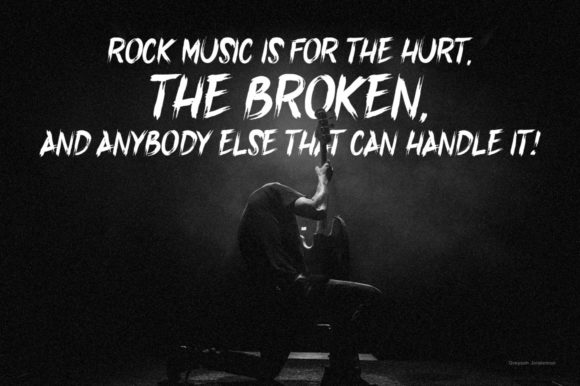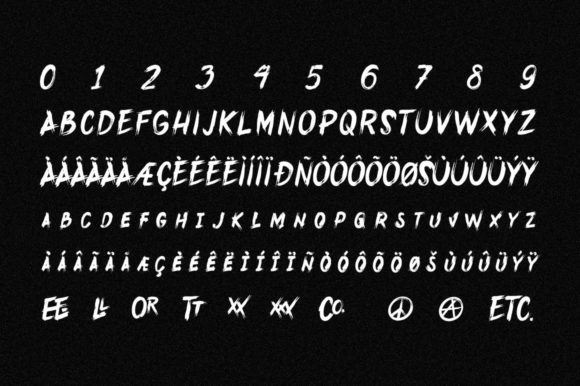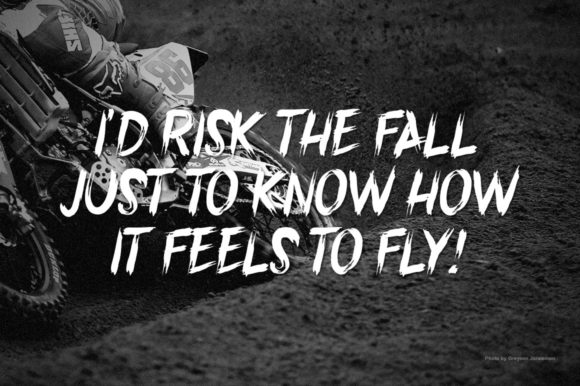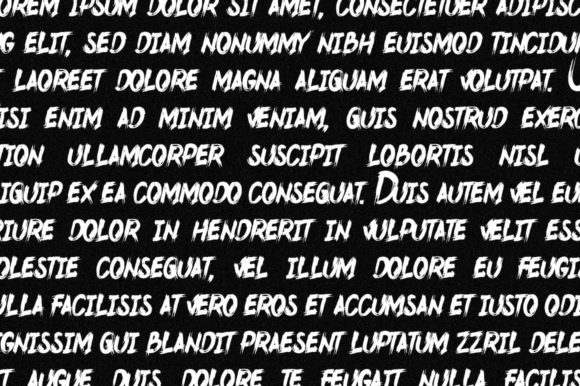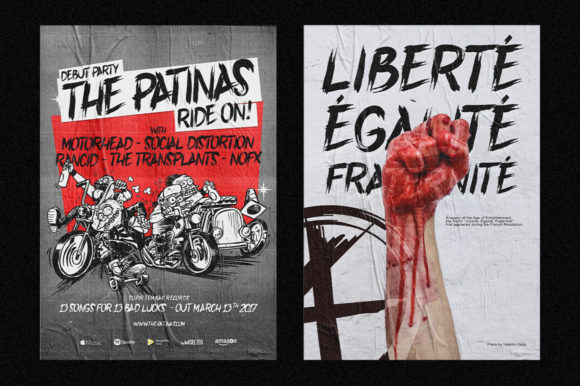
Bahula Font: The Rebellious Choice for Bold and Loud Designs
In the world of typography, fonts play a crucial role in conveying the tone and personality of a design. For designers and crafters looking to make a statement, Bahula Font is the perfect choice. This rebellious font is designed to grab attention and add a bold, loud touch to any design project. In this article, we’ll explore the features and benefits of Bahula Font, and why it’s the ideal choice for attention-grabbing header text, logos, clothing designs, and more.
The Rebellious Spirit of Bahula Font
Bahula Font is not your average font. It’s a bold, daring, and unconventional typeface that’s designed to challenge the status quo. With its rugged and edgy aesthetic, Bahula Font is perfect for designers who want to add a touch of rebellion to their designs. Whether you’re creating a logo, a poster, or a clothing design, Bahula Font is sure to make a statement.
Key Features of Bahula Font
So, what makes Bahula Font so special? Here are some of its key features:
- Bold and Loud: Bahula Font is designed to be loud and attention-grabbing. Its bold strokes and rugged aesthetic make it perfect for designs that need to stand out.
- Rebellious Touch: Bahula Font has a rebellious spirit that’s perfect for designers who want to challenge the status quo.
- Versatile: Bahula Font can be used for a wide range of design projects, from logos and posters to clothing designs and more.
- Easy to Read: Despite its bold and rugged aesthetic, Bahula Font is easy to read, making it perfect for designs that need to communicate a message quickly and effectively.
Use Cases for Bahula Font
So, how can you use Bahula Font in your designs? Here are some use cases to consider:
- Attention-Grabbing Headers: Use Bahula Font to create attention-grabbing headers that draw the reader’s eye.
- Logos: Bahula Font is perfect for logos that need to make a bold statement.
- Clothing Designs: Add a rebellious touch to your clothing designs with Bahula Font.
- Posters and Flyers: Use Bahula Font to create bold and eye-catching posters and flyers.
Tips for Using Bahula Font
Here are some tips for using Bahula Font in your designs:
- Use it Sparingly: Bahula Font is bold and attention-grabbing, so use it sparingly to avoid overwhelming the reader.
- Pair it with Other Fonts: Pair Bahula Font with other fonts to create a unique and interesting contrast.
| Font Name | Bahula Font |
| Author | Juru Rancang Graphic |
In conclusion, Bahula Font is a rebellious and bold font that’s perfect for designers and crafters who want to make a statement. With its rugged and edgy aesthetic, Bahula Font is ideal for attention-grabbing header text, logos, clothing designs, and more. Whether you’re a seasoned designer or just starting out, Bahula Font is a great choice for adding a touch of rebellion to your designs.